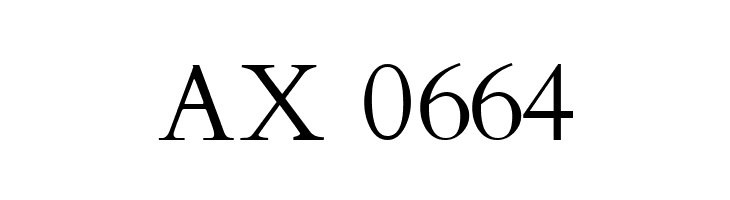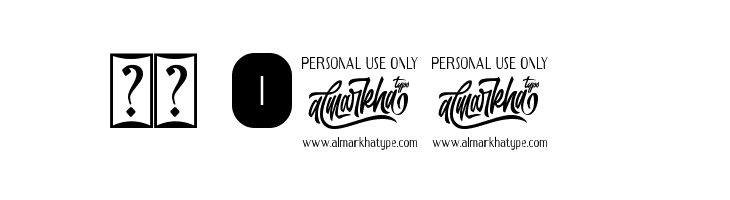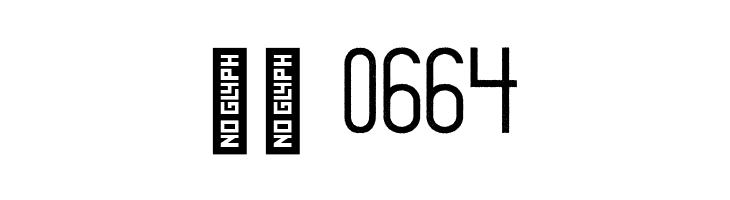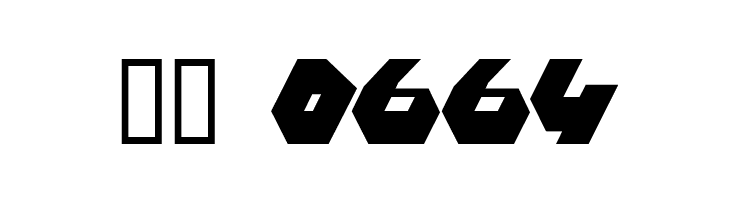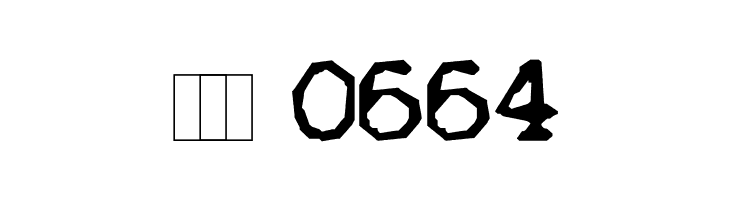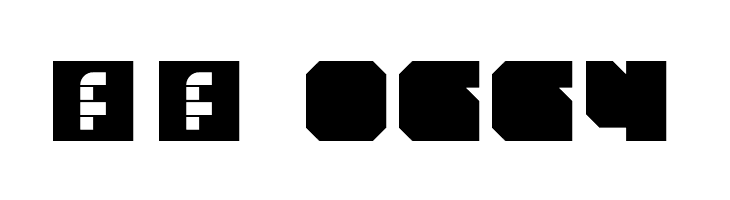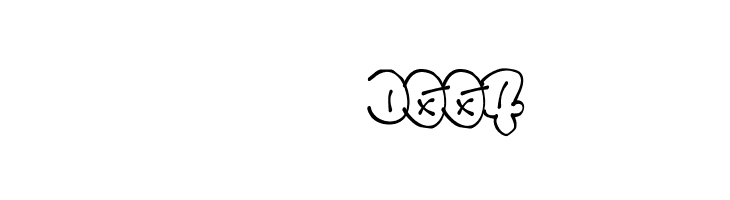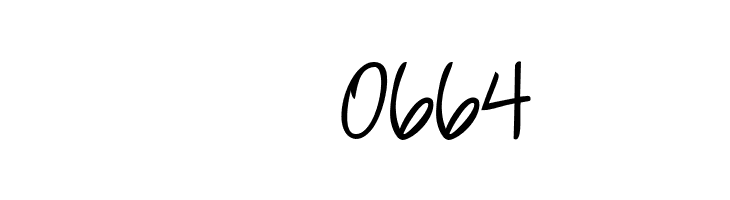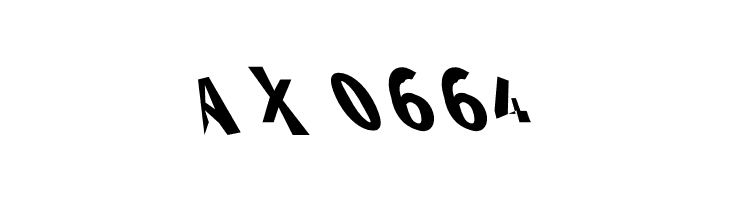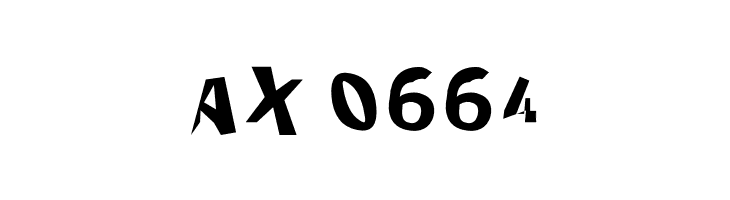
An ornate and decorative font with intricate swirls and flourishes.
A bold, modern script font with a dynamic, handwritten style.
Illustrative, Victorian-inspired decorative font using detailed engravings for each character.
A decorative font with intricate, storybook-style illustrations within each character.
A distressed, textured font with a vintage, typewriter-inspired style.
A playful, casual handwritten font with smooth curves and a personal touch.
A bold, playful handwritten font with rounded, energetic letterforms.
A bold, geometric font with a blocky and modern design.
A bold, playful font with rounded strokes and a bubble-like appearance.
A bold, graffiti-style font with bubble-like letters and urban flair.
A bold, expressive handwritten font with dynamic strokes.
A bold, dynamic script font with flowing, energetic letterforms.
A bold, angular font with a futuristic and dynamic design.
A modern, tall, and narrow sans-serif font with medium contrast.
A modern, geometric font with clean lines and a sleek appearance.
A graceful and elegant script font with flowing, cursive strokes.
A flowing, cursive script with elegant loops and swashes, mimicking traditional calligraphy.
A bold, brush-style font with a rebellious and energetic feel.
A bold, brush-textured font with a rough, hand-painted style.
A bold blackletter font with intricate, gothic-inspired letterforms.
A bold, geometric font with a strong, modern aesthetic.